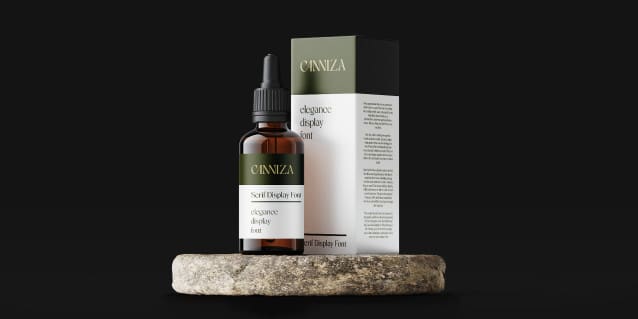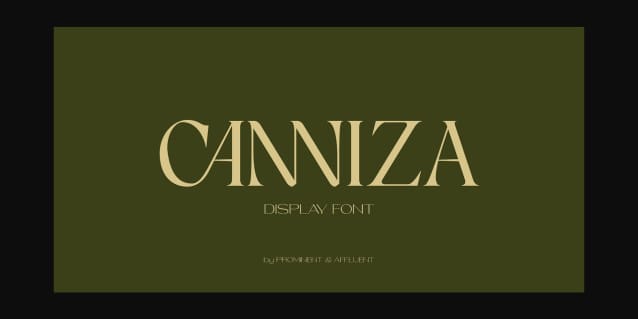
Canniza Font Family
Canniza Font Family, is a very aesthic display typeface designed for use in large sizes. It features 8 weights, from thin to bold. The typeface features a classic serif design with a modern twist.